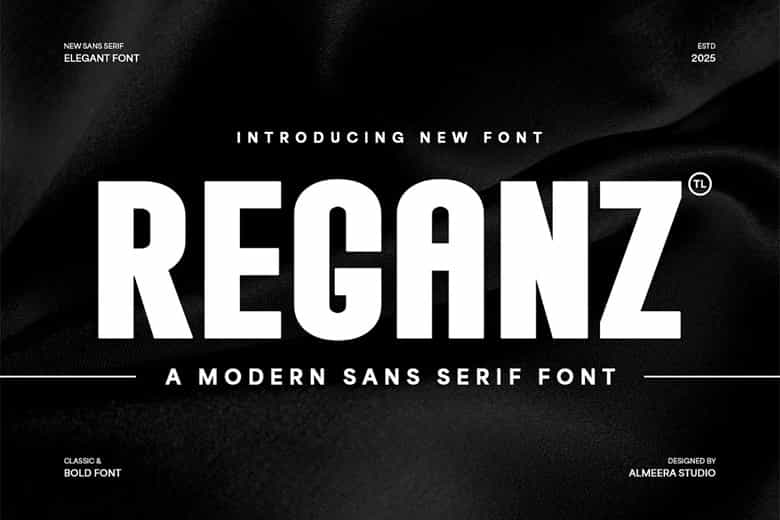
Reganz is a really contemporary sans serif typeface that is made to be bold and to be put there which is punchy. It is such a trendy typeface to be your best companion in modern branding, potent advertising campaigns, online interface, and striking headlines. Reganz also has sturdy and yet clean letters that attracts attention but at the same time is very easy to read.